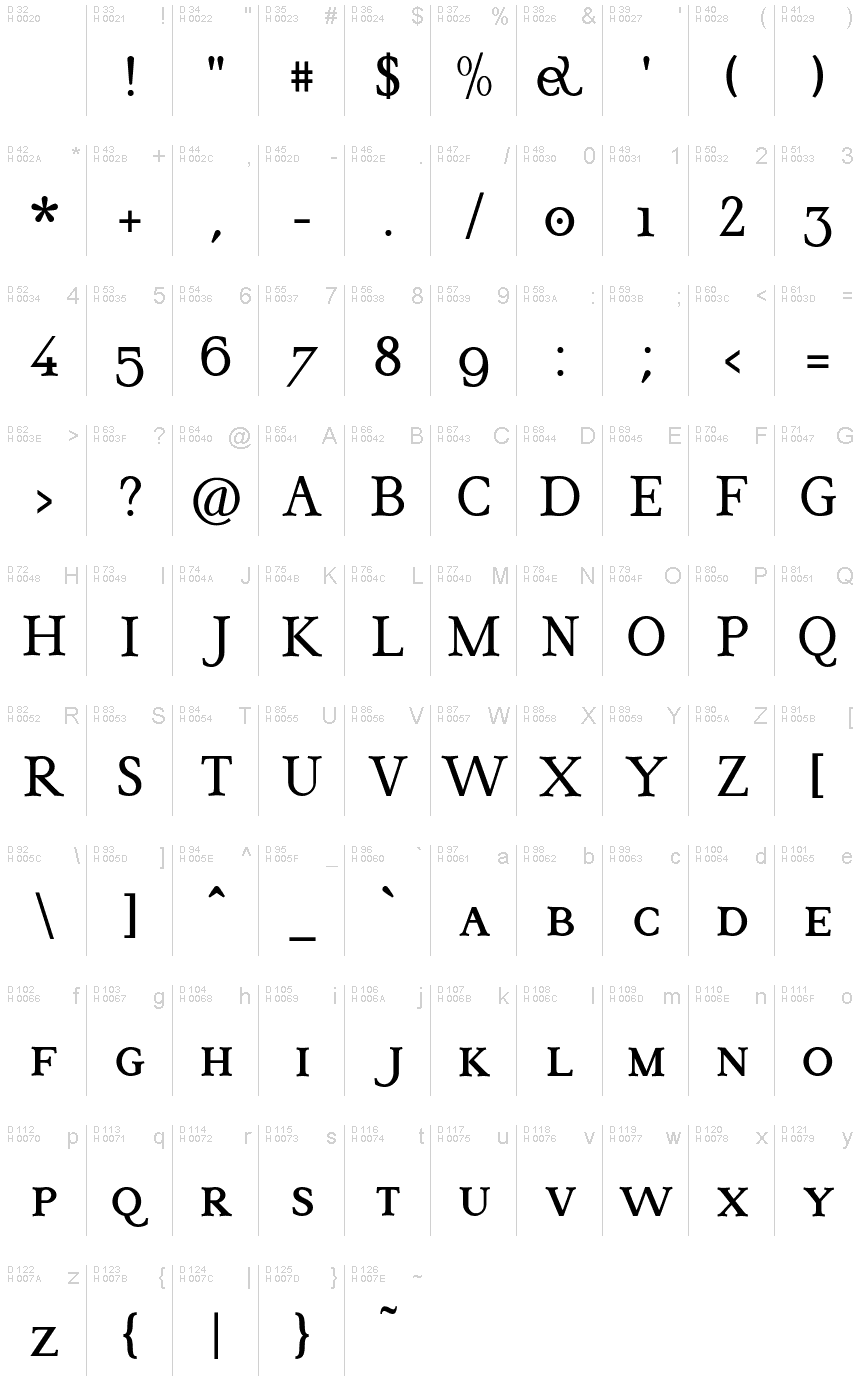
Cohaerentia SmallCaps regular
Cohaerentia SmallCaps font is a quality serif typeface designed by Michele Giordano.
Cohaerentia is a font created chiefly in order to balance possible graphic coherence and expressive freedom.